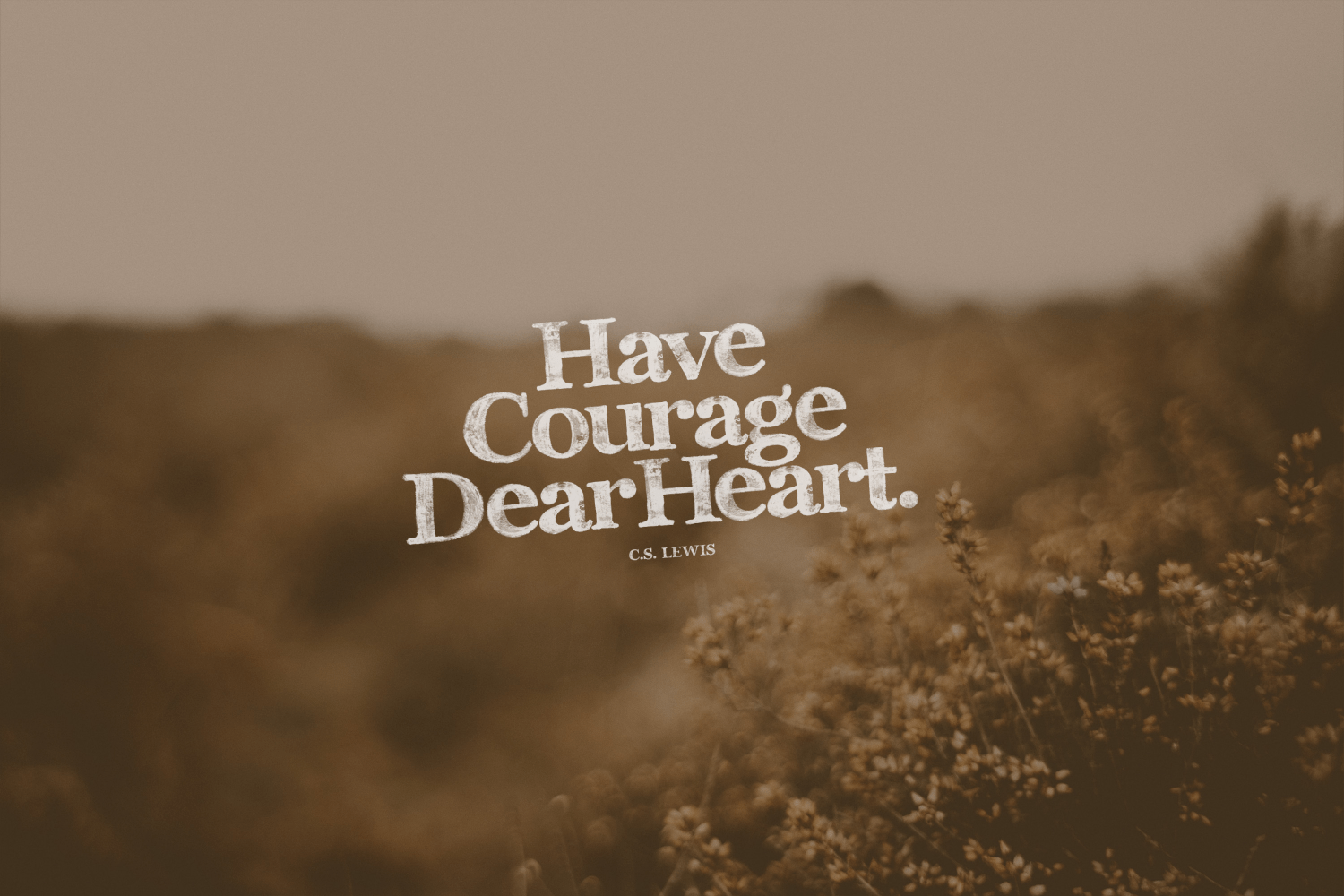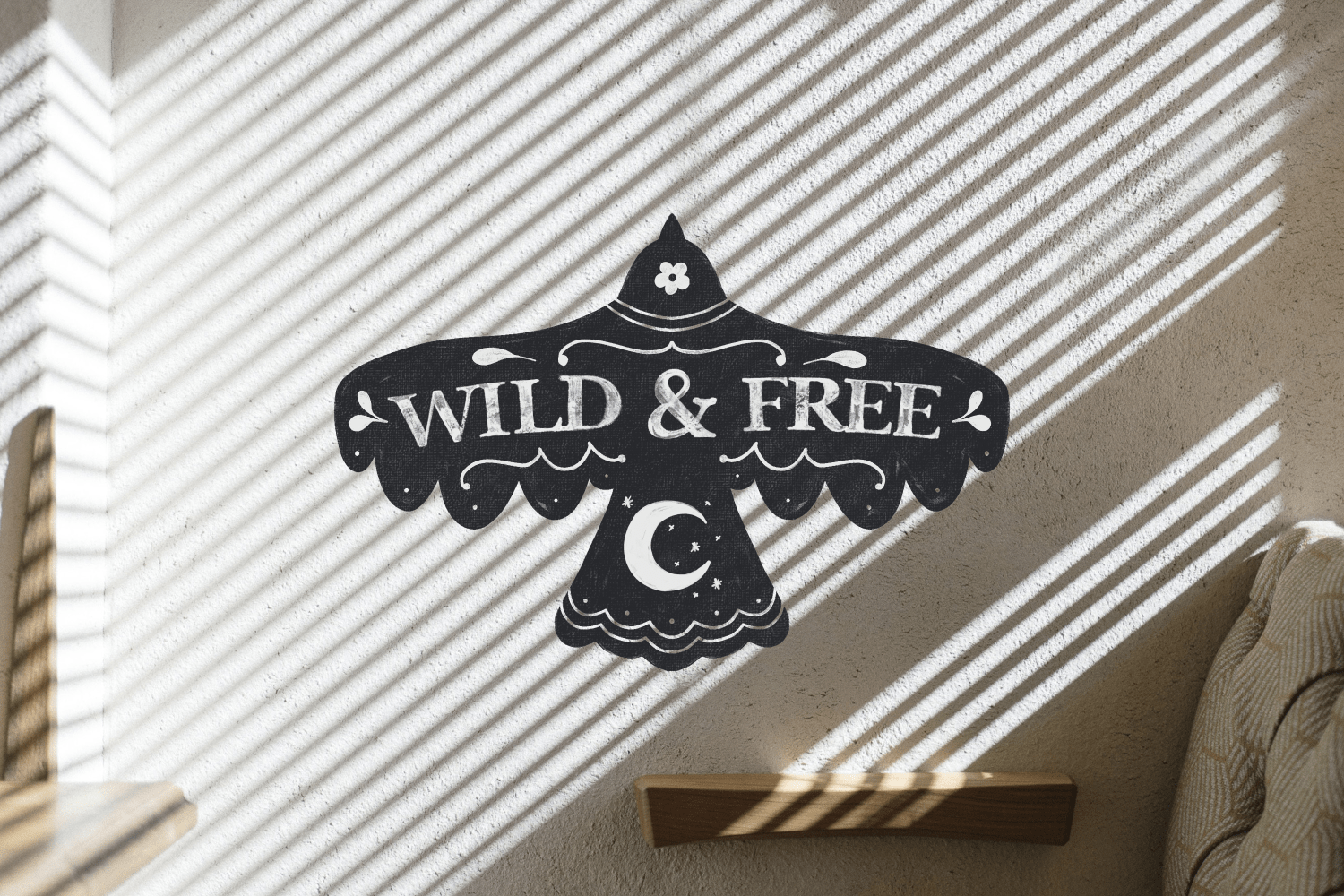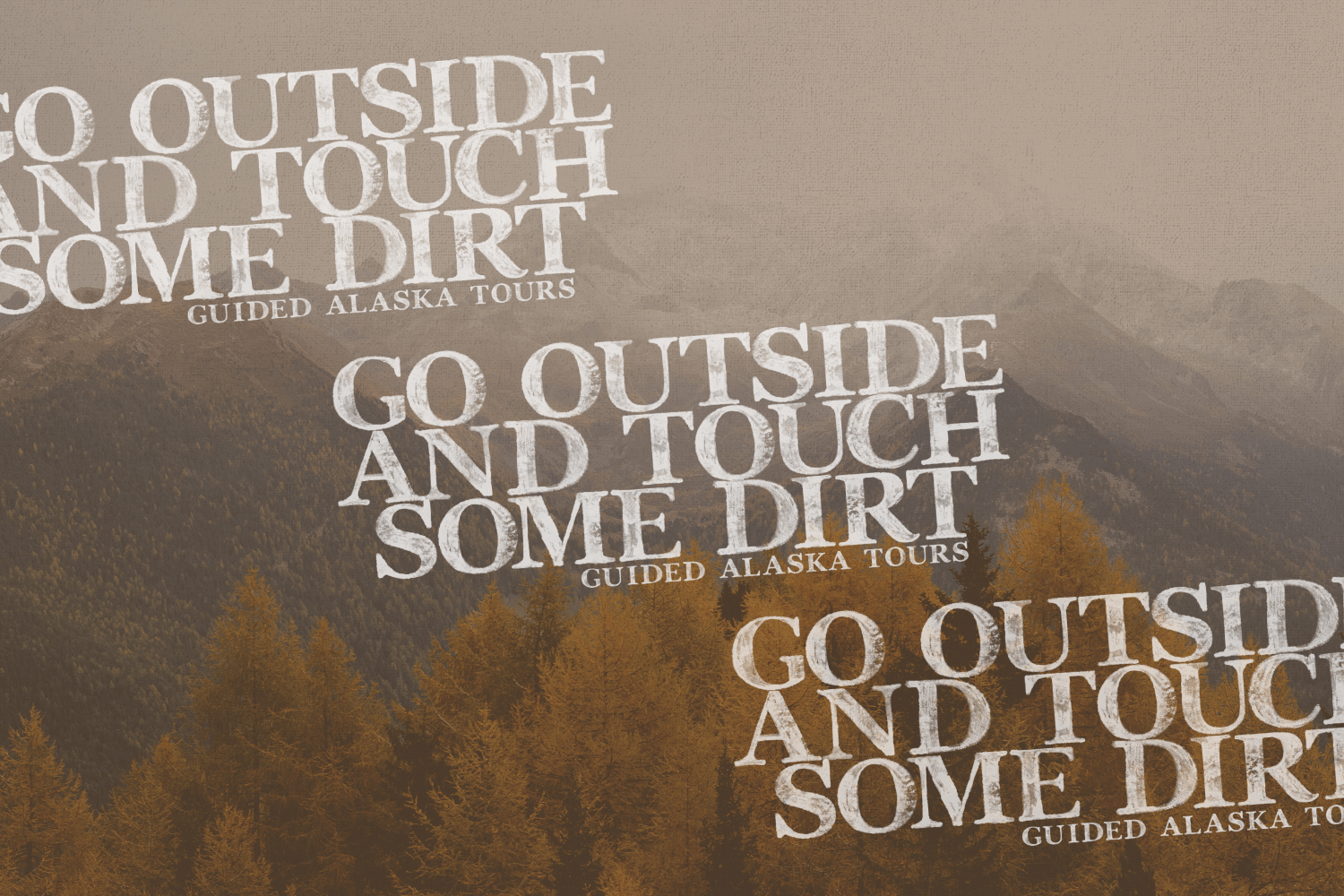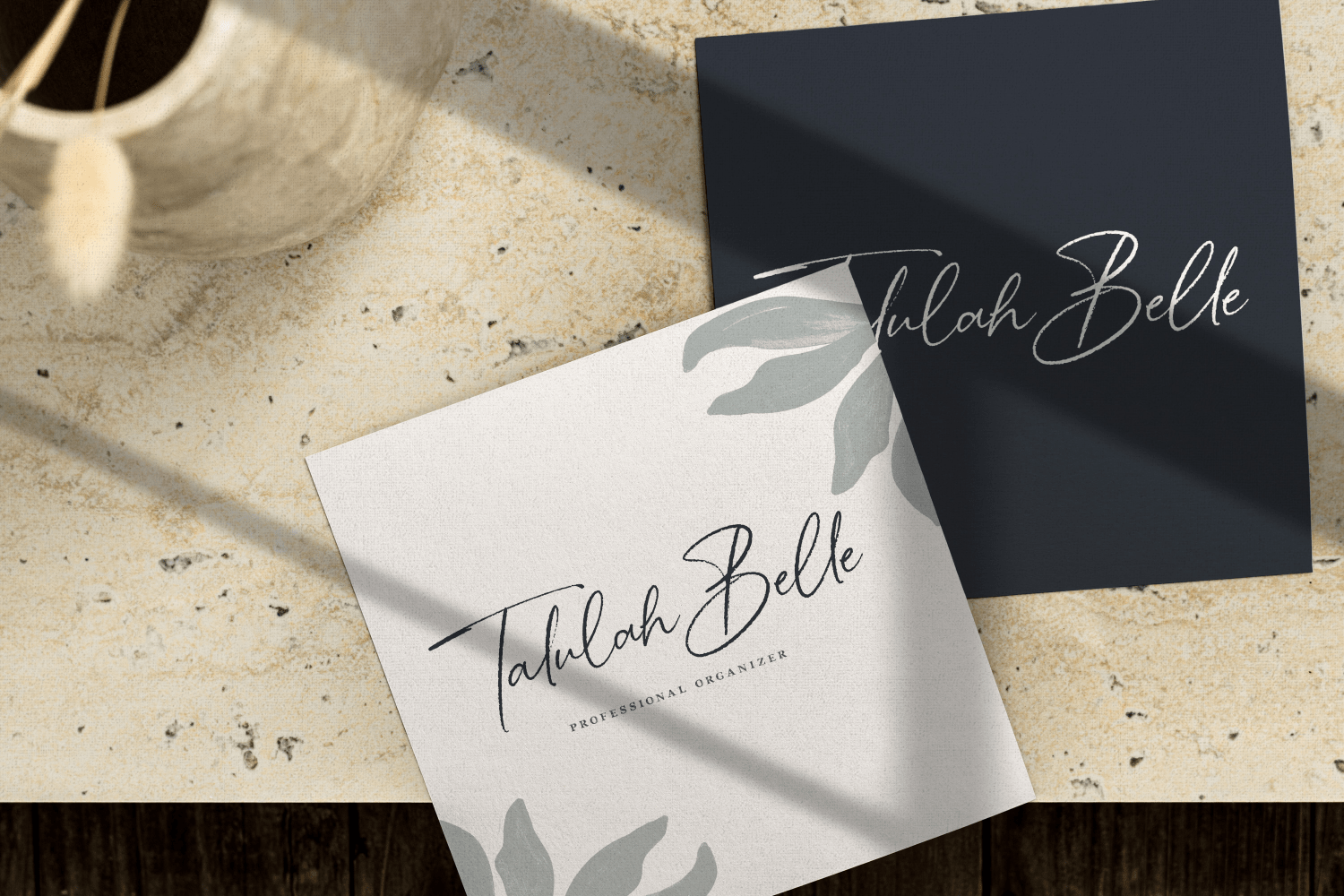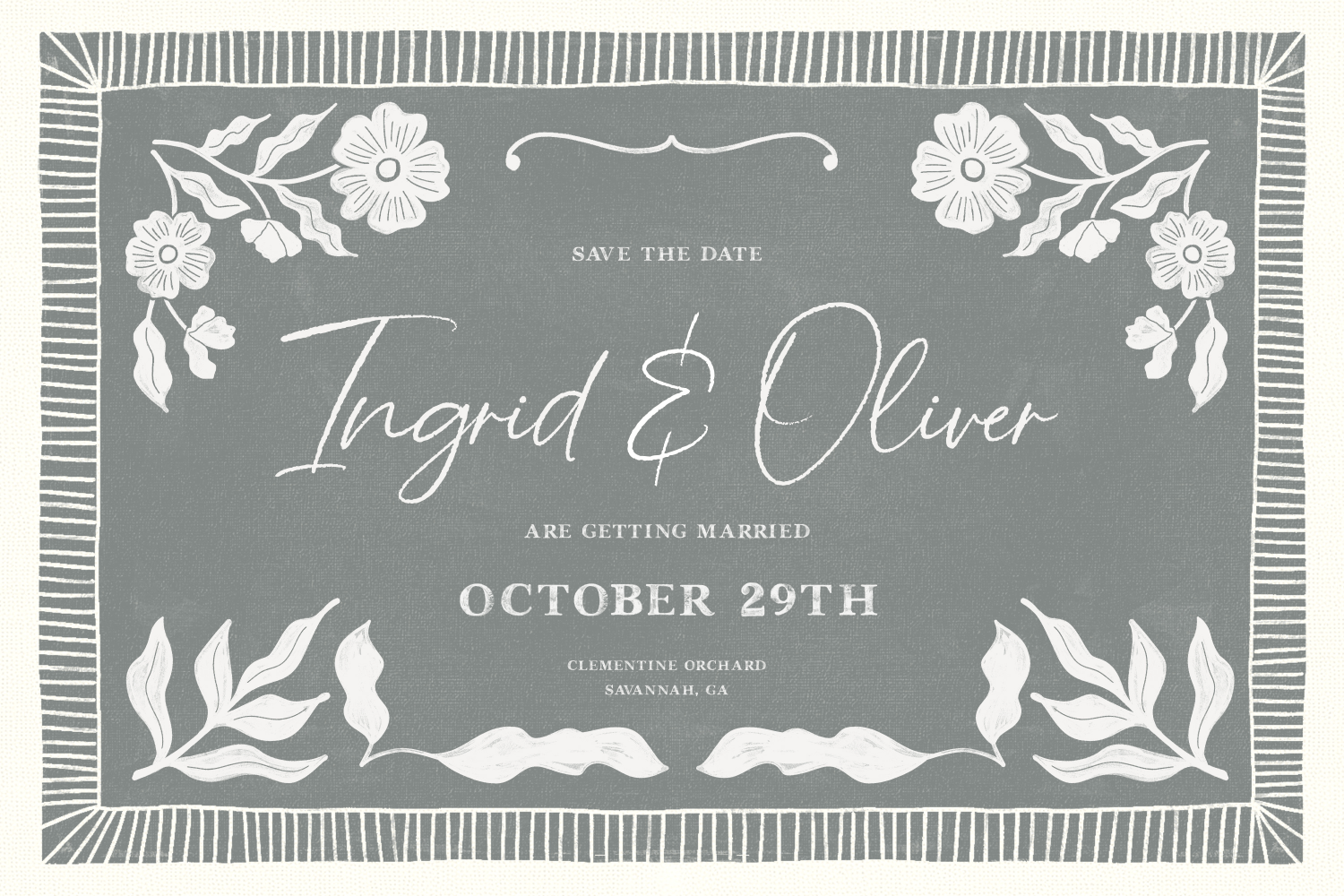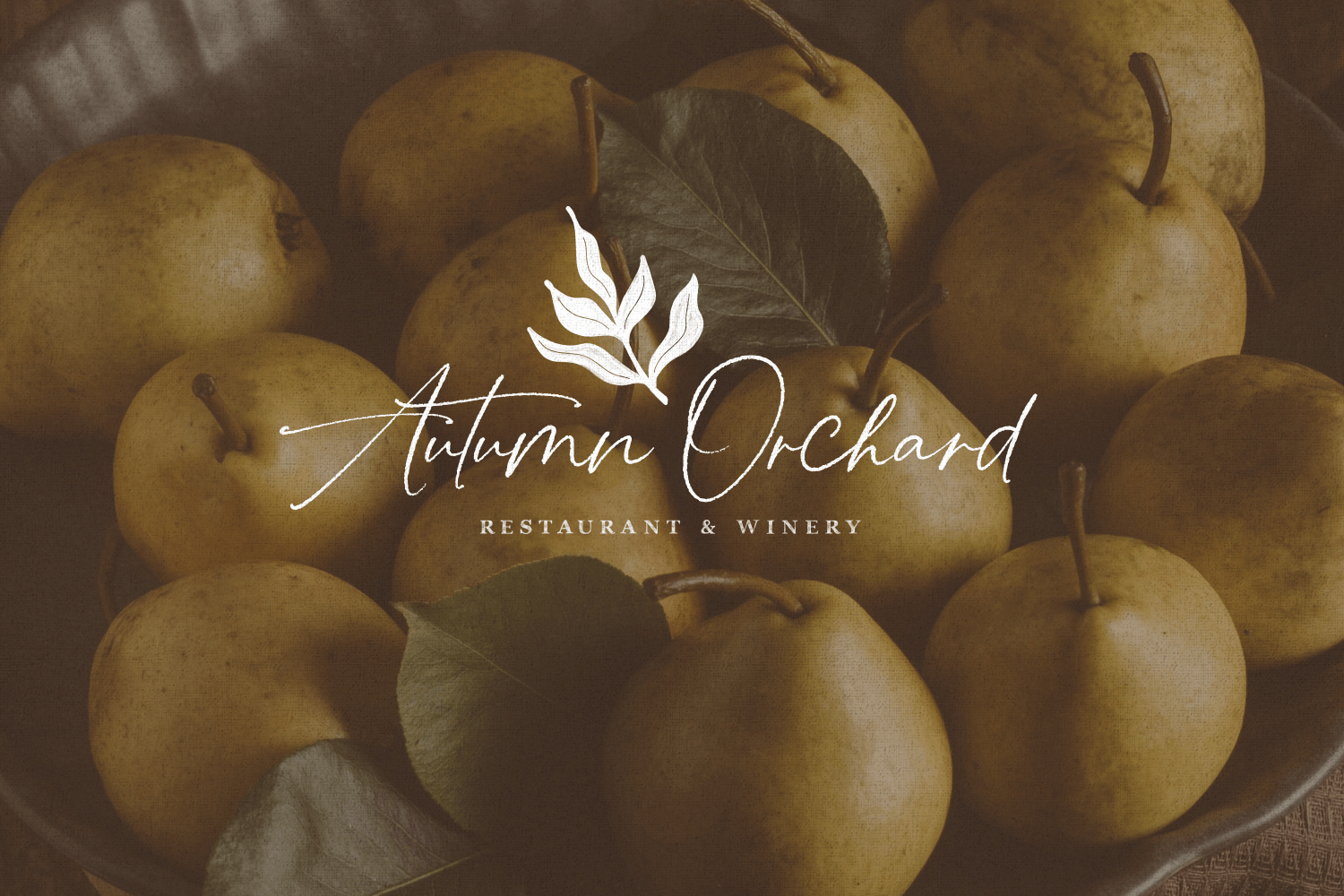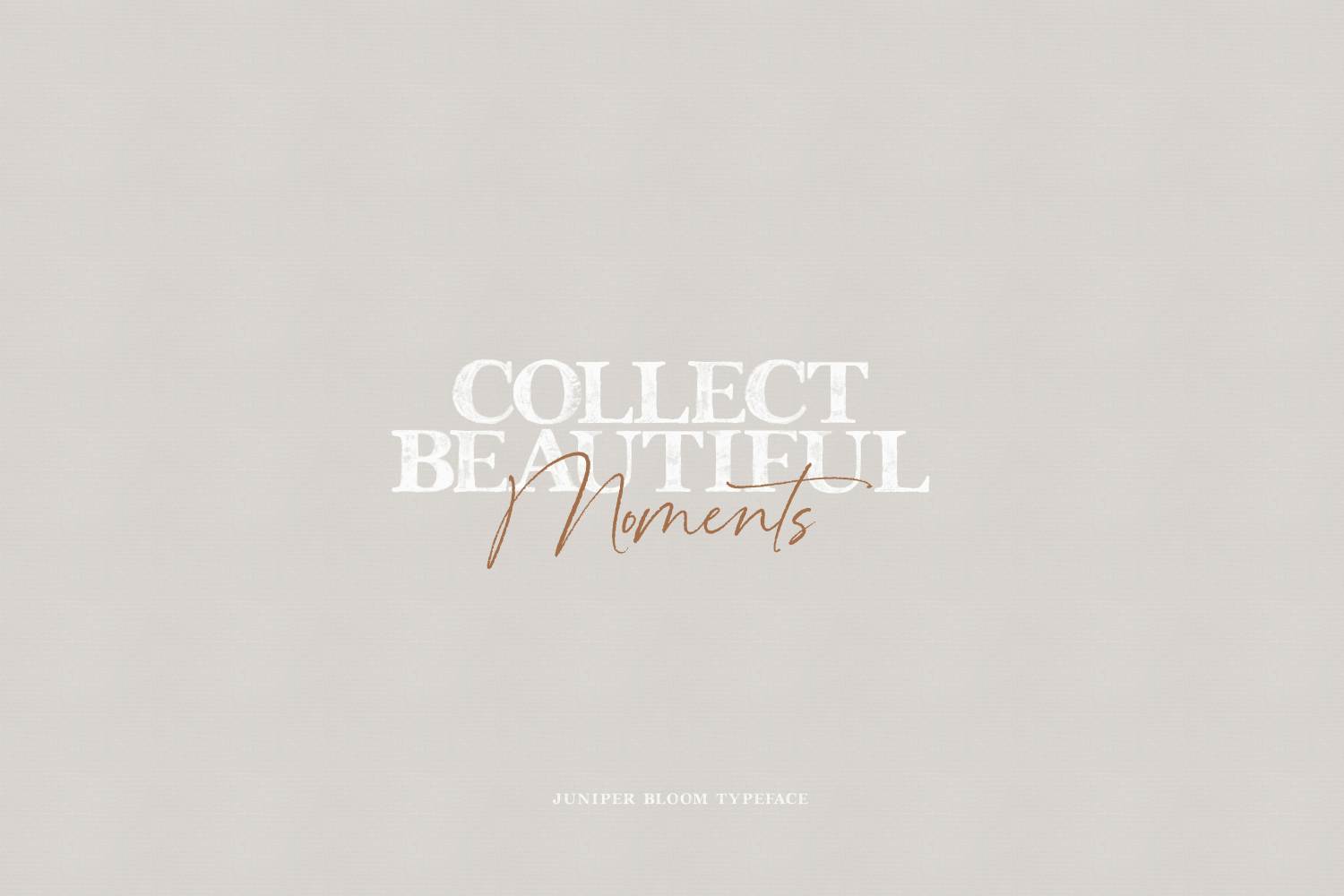
JuniperBloom Script & Serif
About JuniperBloom Script & Serif
Introducing Juniper Bloom, inspired by linocut and folk art, this elegant duo boasts a darling script with over 200 alternates & end characters, along with a textured, transparent serif. Use this unique duo on everything from branding to apparel;…